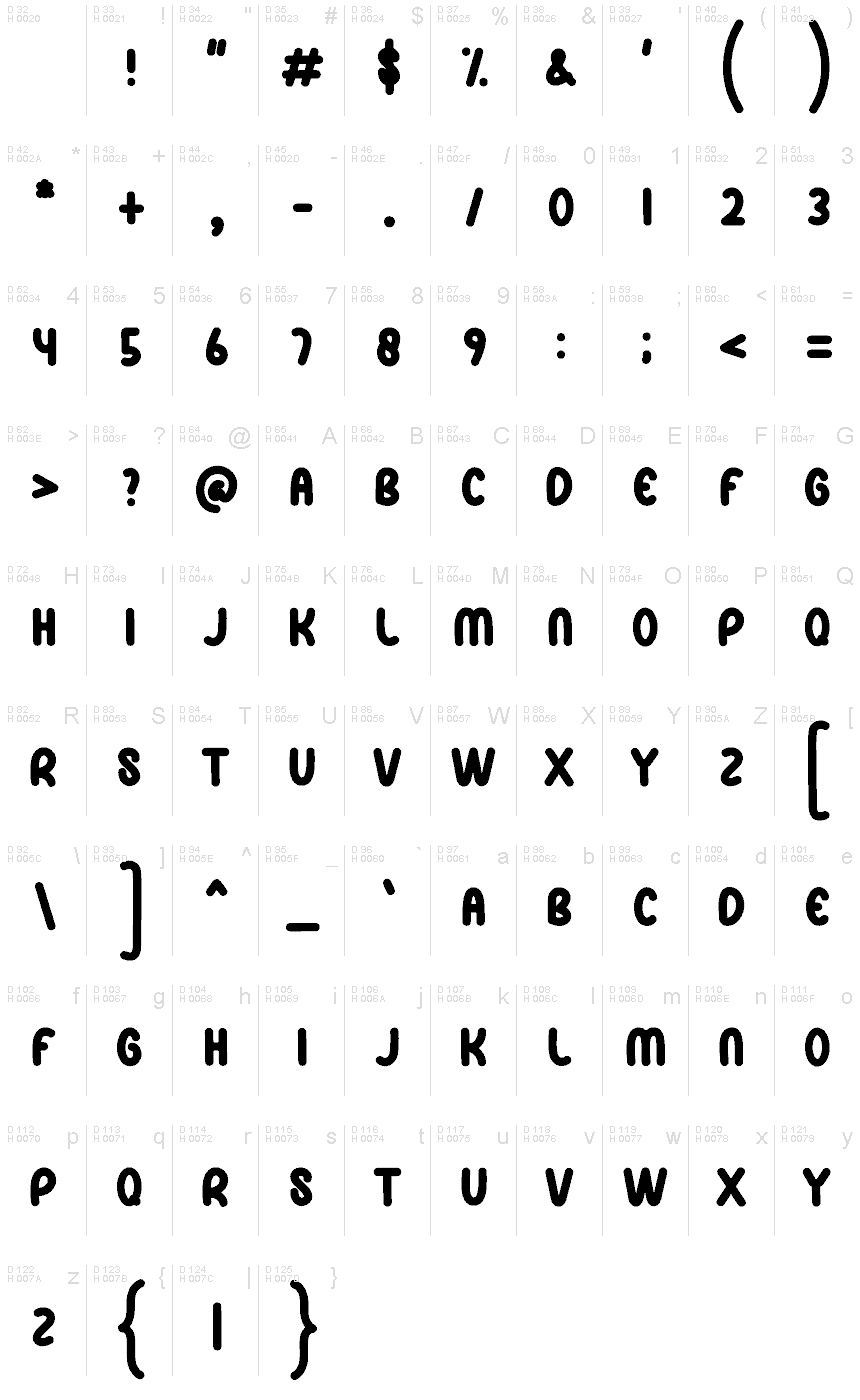
Weekend Camp
Weekend Camp font by Andi Moz is a friendly and bold handwritten font with rounded elements. This display typeface draws its inspiration from journey memories such as the first mountain bike, sleeping beneath the stars, and fishing in the river. It is retro, vintage-influenced, and perfect for projects that need a laid-back feel.
The free-spirited font delivers casual vibes wherever it goes: branding, social media posts, apparel design (t-shirts, caps), sport-related flyers and banners, postcards/letters to your friends or loved ones and other stationery items; your creativity sets the limit!